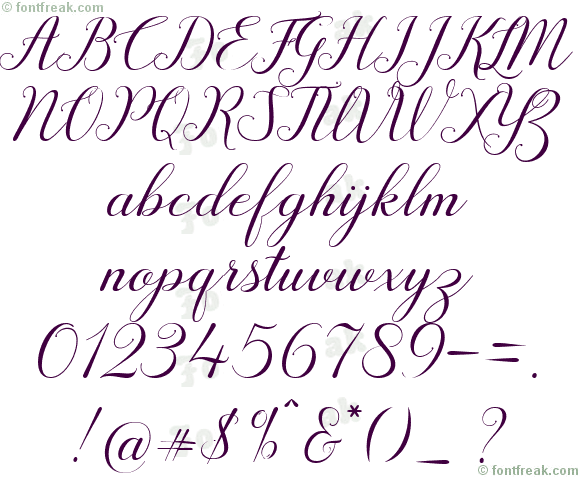
Motesia Script
About Motesia Script
Motesia Script is a beautifully crafted script font designed by Aqeela Studio, embodying elegance and sophistication. As a handwritten style font, Motesia Script features flowing, cursive letterforms that evoke a sense of warmth and personalization. The strokes exhibit a gentle contrast with varying weights, enhancing the fluidity of the design. Each character is carefully spaced to ensure readability while maintaining a seamless connection, making it perfect for various creative projects.
This font is particularly well-suited for wedding invitations, where its romantic style can beautifully convey the essence of love and celebration. It can also elevate the appearance of movie posters, adding an artistic flair that captures attention. Restaurant menus will benefit from Motesia Script's charm, providing a touch of sophistication that complements fine dining experiences. Additionally, small business branding can be enhanced with this font, offering a unique identity that resonates with customers.
Targeted towards graphic designers, small business owners, and content creators, Motesia Script offers an opportunity to infuse creativity into various projects. Whether you’re designing a logo, creating social media graphics, or crafting personalized stationery, this font provides versatility and style.
What truly sets Motesia Script apart is its ability to blend artistic flair with functionality. The delicate curves and elegant flourishes create a visually appealing typeface that remains legible across different applications. As a freeware font, it allows users to explore their creativity without the constraints of licensing fees. For those looking to enhance their design toolkit, the Motesia Script font free download is an excellent choice, promising to bring a touch of grace and charm to any project.